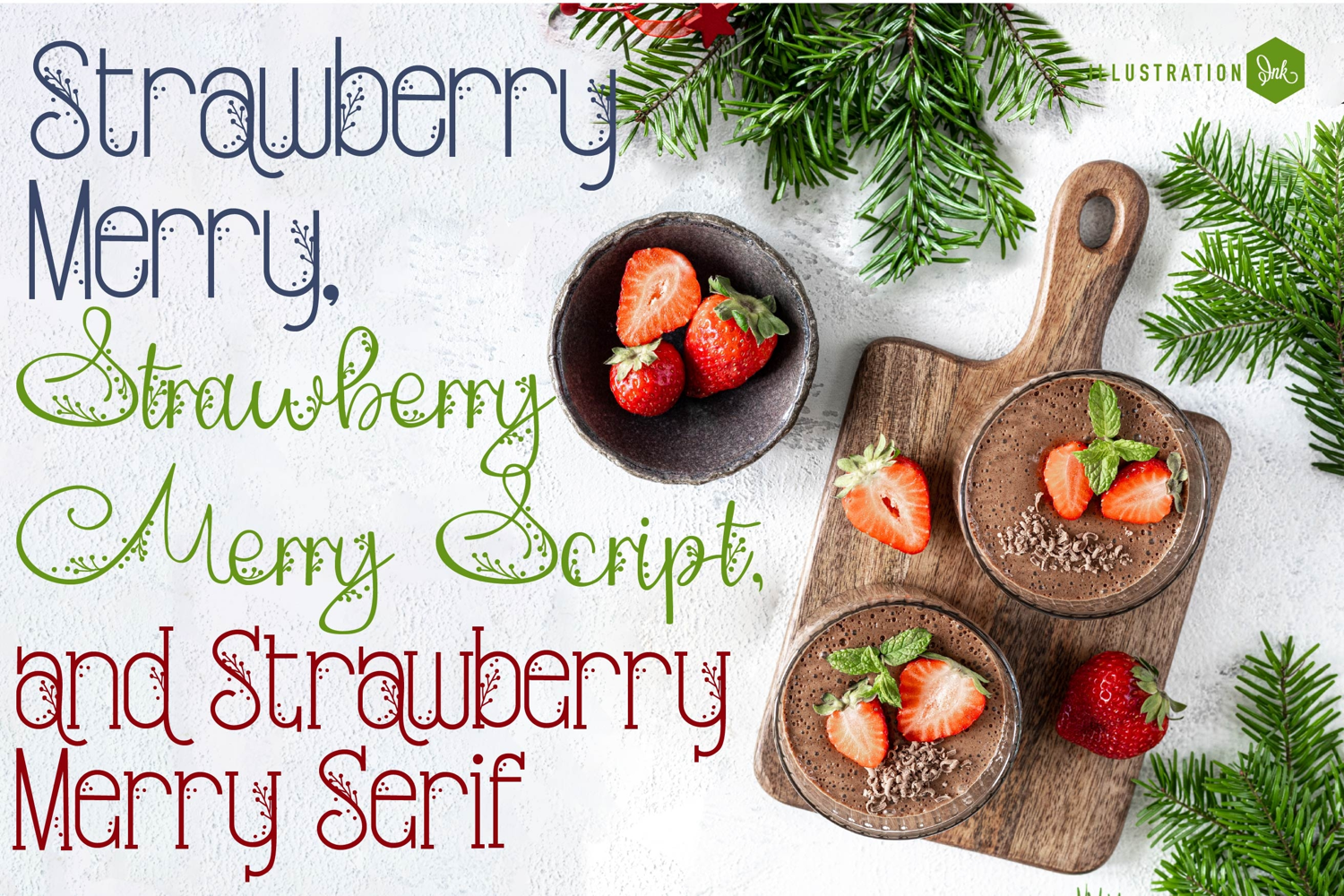
Strawberry Merry Font Trio
This hand-crafted font trio combines a berry-sporting sans serif font, a serif version, as well as a perfectly coordinated script. Bonus tag dingbat font included! With all family members combined of the 3 fonts, you get 10 fonts all together!
Hand-crafted fonts can be either formal or informal, and they can be used for a variety of purposes. Some of the characteristics of handwritten fonts include: The letters are not perfectly uniform in size or shape. There may be slight variations in the spacing between letters and words. The font may have a "wiggly" or "squiggly" appearance. The font may be difficult to read at small sizes. Handwritten fonts can be a great way to add a casual touch to your designs. They can also be used to create a sense of nostalgia or whimsy. However, it is important to choose a handwritten font that is appropriate for the project you are working on. A formal handwritten font may not be appropriate for a casual invitation, while an informal handwritten font may not be appropriate for a corporate document.
• The letters are not perfectly uniform in size or shape.
• There may be slight variations in the spacing between letters and words.
• The font may have a "wiggly" or "squiggly" appearance.
• The font may be difficult to read at small sizes.